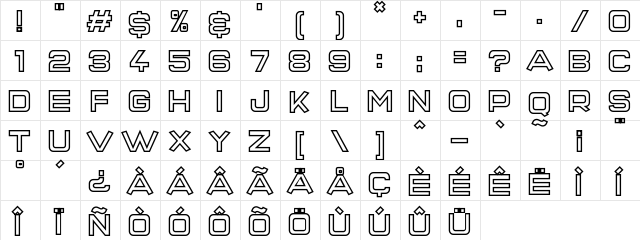
Super Quick Formula Hollow Regular
Design Context for Super Quick Formula Hollow Typeface
Super Quick Formula Hollow offers clean, dependable letterforms without strong stylistic allegiance, making it a practical choice for designers who need flexibility.